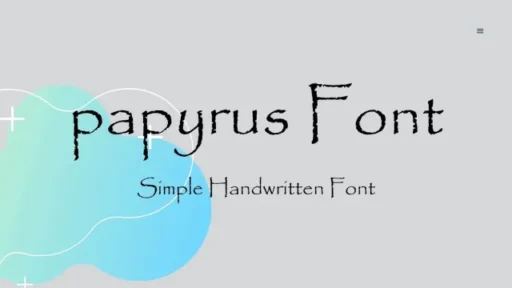
Papyrus Font
Papyrus is a classic serif font with a fun, hand‑drawn feel. Chris Costello designed it in 1982, and Letraset released it in 1983. Today, ITC owns the rights to Papyrus. You’ll also spot it in many Microsoft applications.
Where Papyrus Font works best
Papyrus Font gives long-form text a classic, trustworthy rhythm — ideal for magazine spreads, annual reports and book interiors.
Pair Papyrus Font with generous letter-spacing for wordmarks in fashion, hospitality, wine and jewellery branding.
Use Papyrus Font for slide titles in Keynote, PowerPoint or Google Slides to add authority without looking dated.
What is Papyrus Font good for?